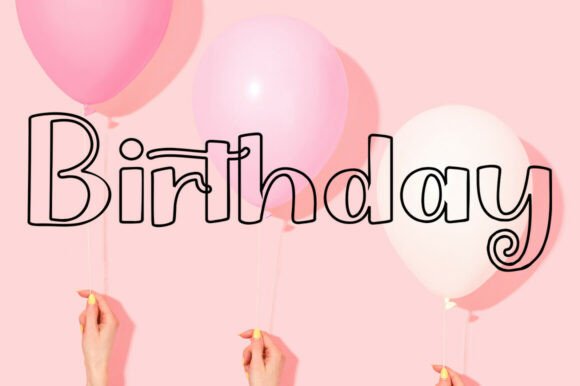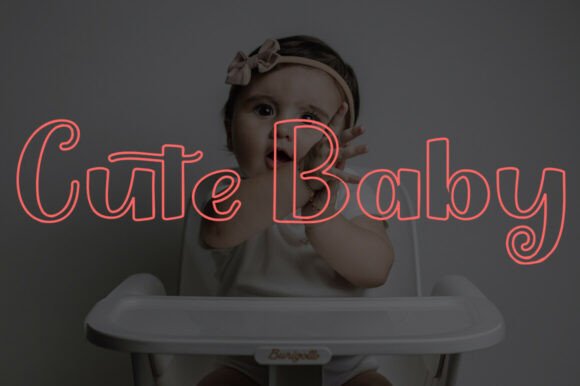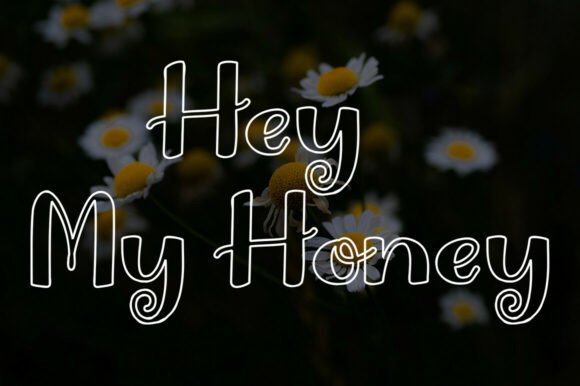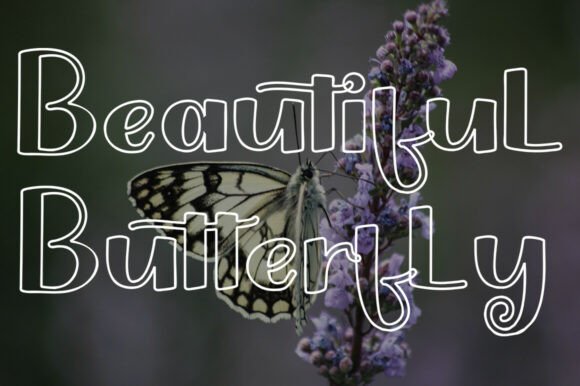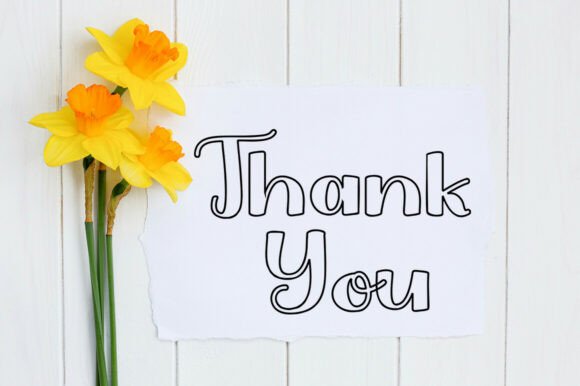
Introduction to Curly Pop Font
Bring a cheerful, modern vibe to your designs with Curly Pop — a playful and stylish handwriting font that captures the essence of casual creativity.
Its smooth, rounded strokes and expressive letters create a friendly and welcoming tone, perfect for adding warmth and personality to your work Each letter flows naturally, giving your designs a handcrafted and authentic look.
Key Features of Curly Pop Font
Why Choose Curly Pop Font?
Curly Pop Font offers exceptional quality and versatility, making it a valuable addition to your design toolkit. Whether you’re creating for personal projects or commercial use, Curly Pop Font delivers professional results.